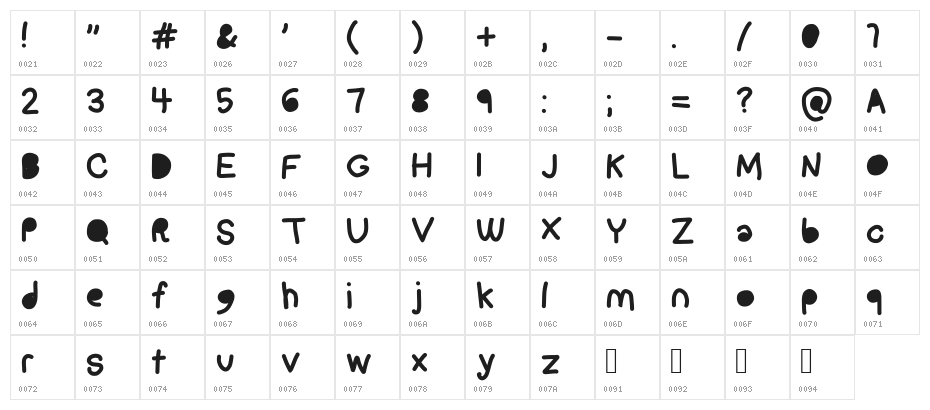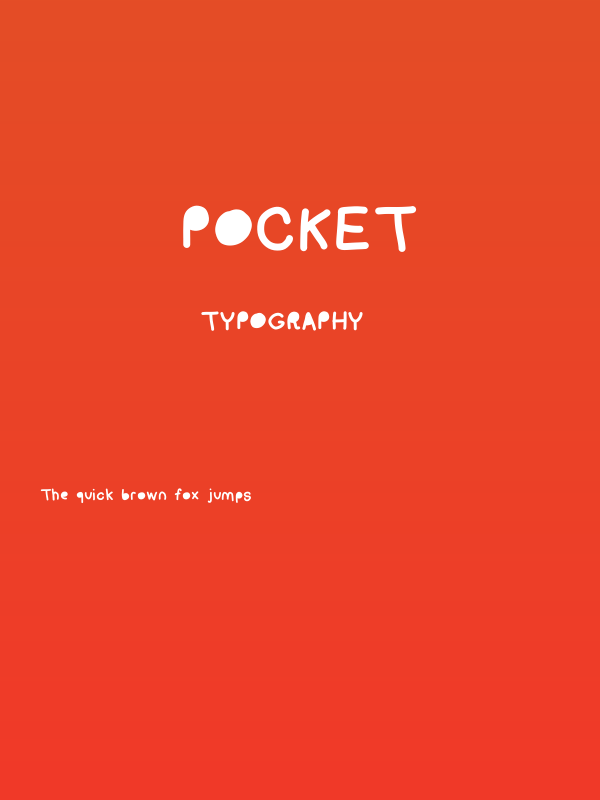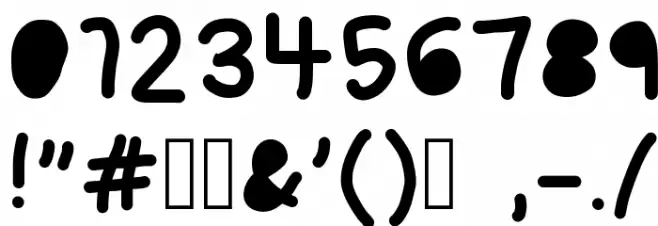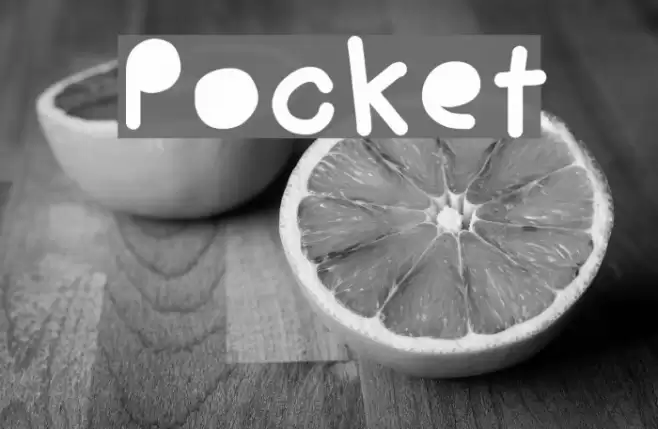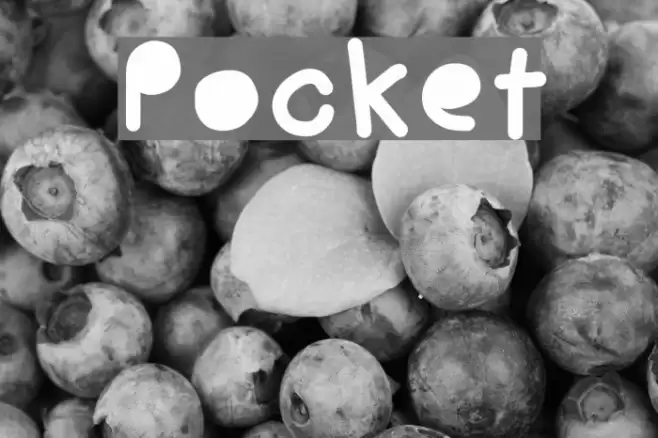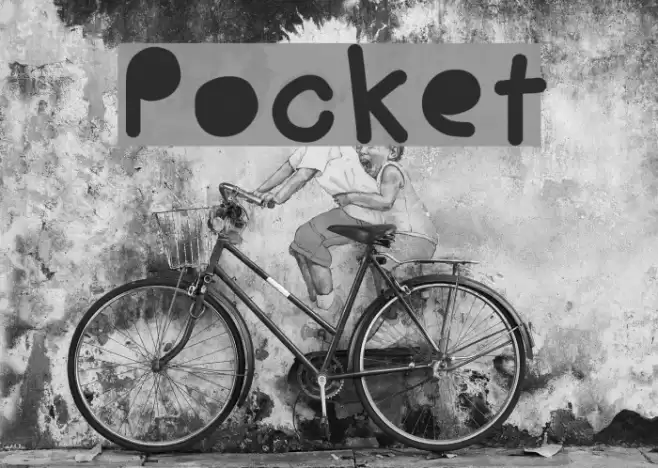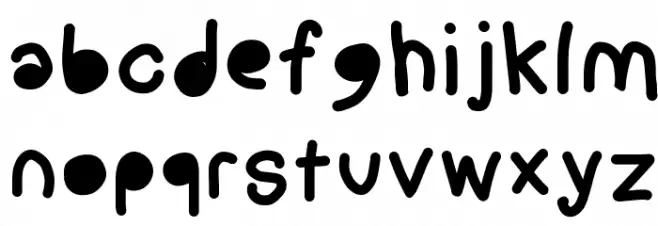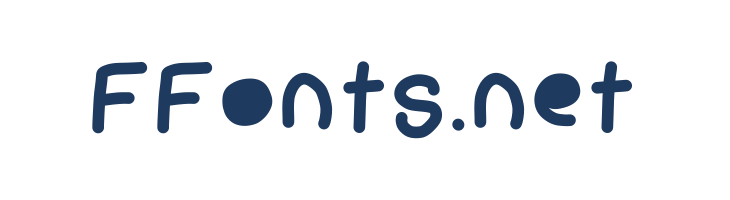
Pocket Font
Pocket Description
This playful and bold font features rounded, bubbly characters that convey a sense of fun and creativity. The letters are thick and have a slightly irregular shape, giving them a hand-drawn appearance. The uppercase and lowercase letters maintain a consistent style, with smooth curves and a friendly demeanor. Numbers and special characters follow the same playful design, making this font suitable for projects that require a touch of whimsy and informality. The overall look is approachable and lively, perfect for capturing attention in a casual setting.
| Overall Style | Playful, Fun, Hand-drawn |